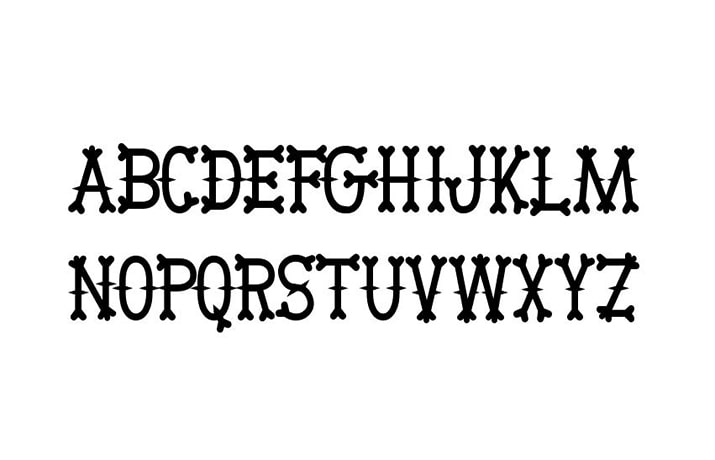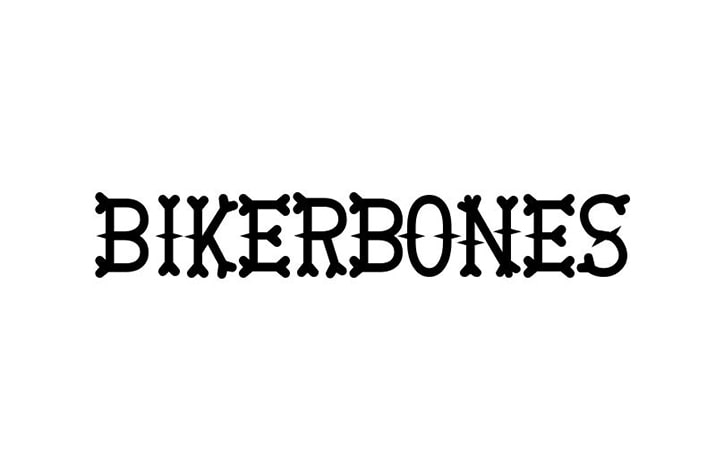
Biker Bones Font is made up of bones that you can place this font next to many creatures, such as giraffes, lions, or even crows, which symbolize the Halloween design and have a scary theme.
A very famous font foundry Gaut Fonts has taken the charge of creating and publishing it for the first time in 2004.
Along with exceptional work and experience, the designer has spent a lot of time creating stylish layouts with a modern look.
| Font Name: | Biker Bones Font Family |
| Style: | Decorative, Display, Typeface |
| Font Designer: | Gaut Fonts |
You can apply this typeface family to larger design projects. For example, it can be used for banner ads, book covers, logo crafting, packaging mockups, fashion magazines, printing on t-shirts, quotes, photography, etc. On the other hand, it can also use tattoo printing.